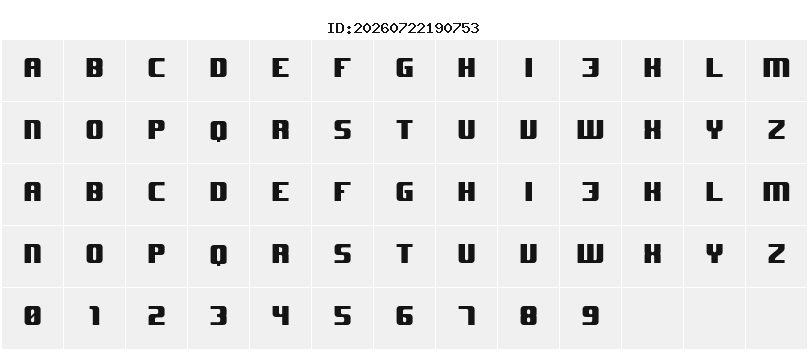
JHUF Preview
• Font Name: JHUF
• Designer: Joiro Hatagaya
• Description: Greetings font fans! This is the second (released) of my next generation (FOG 4.1) fonts. Concept was to create a versatile on-screen font that would have decent design and be more or less readable as well. Of course influence by that famous Mac GUI font (Chicago a.k.a. Beijing) can't be overseen, but I believe that there are enough differences to get this font its own small place in the history of type [Reaching for the stars here a bit :)] Well, I hope you enjoy this font. If you really like it and would like to send me anything (Superhero comics, CDs, Sci-Fi movie 'making of' books, well, stuff for a computer and Sci-Fi freak) I will be more than happy to give you my adress just send me an e-mail. What can I do, begging for stuff is an old and honored tradition for freeware products, so I do it as well. :] Ok, that's it. Bye!
JHUF.ttf is a modern, elegant sans-serif font designed for ultimate readability and visual harmony. Perfect for branding, headlines, web design, and print materials.